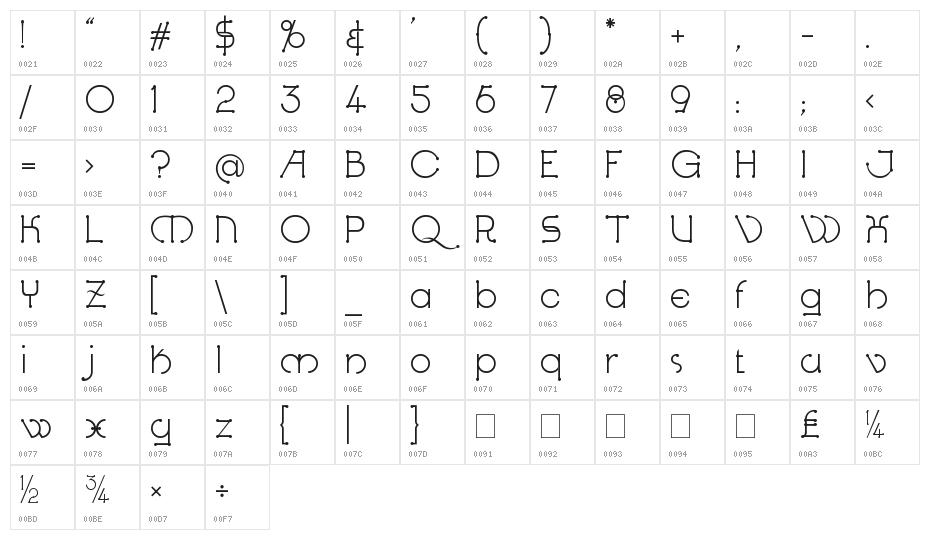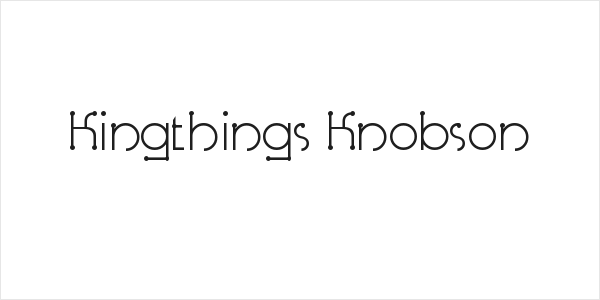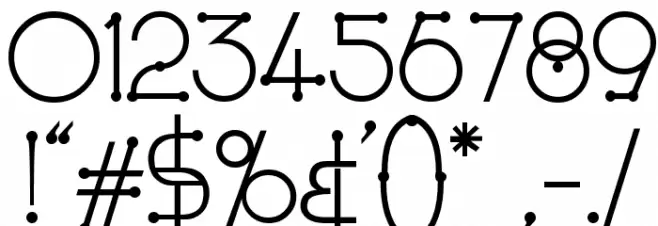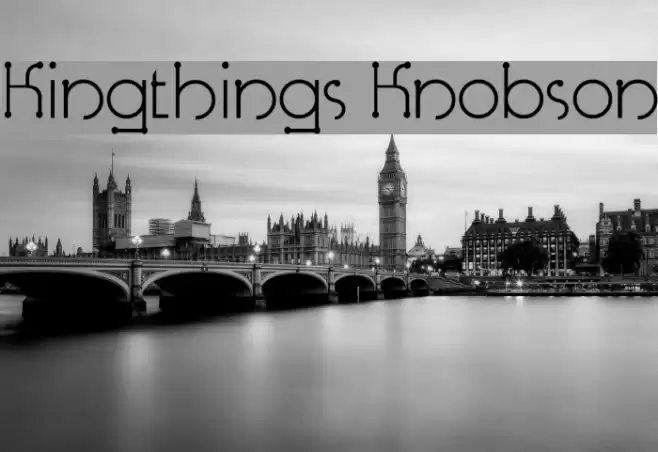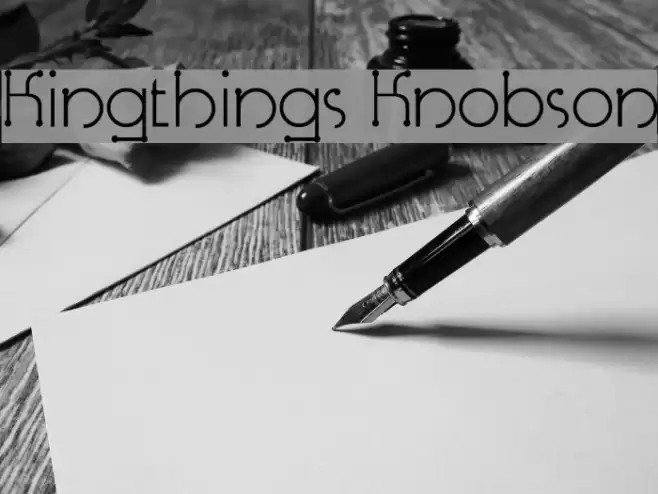
Kingthings Knobson Font
Kingthings Knobson Description
This font features a unique and playful design with rounded terminals and a consistent stroke width. The characters are constructed with a combination of straight lines and circular elements, giving it a whimsical and modern appearance. The uppercase letters maintain a uniform height, while the lowercase letters are slightly smaller, adding to the playful nature. Numbers and special characters follow the same design principles, ensuring a cohesive look across all elements. The font's distinct style makes it stand out, suitable for creative and artistic projects.
| Overall Style | Modern, Playful |
| Proposed Projects | Ideal for children's books, creative posters, playful branding, and artistic invitations. |